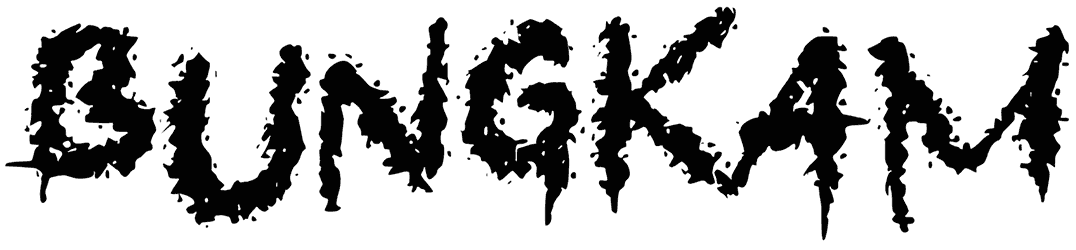
b Bungkam Font
b Bungkam is a fire font that is suitable for a wide range of creative ideas, including movie posters, video game banners, graffiti, and book covers. This script font has chunky and grunge characters, thus guaranteeing t…
b Bungkam is a fire font that is suitable for a wide range of creative ideas, including movie posters, video game banners, graffiti, and book covers. This script font has chunky and grunge characters, thus guaranteeing the visibility of your artwork.
If you want to establish a sense of fear, smudgy, dread, and eerie, it is better to pick up this masterpiece without thinking about the lack of lowercase letters.